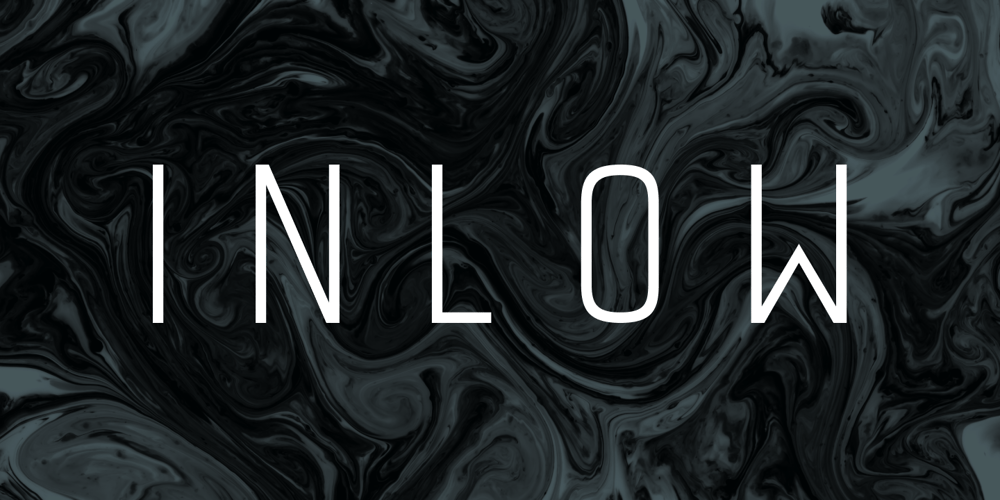
Inlow
Inlow font
Inlow Font Family was designed by Eugene Bunin and published by Harvester Type. Inlow contains 6 styles and family package options. Inlow is a font that evokes a sense of retromodernity, aesthetics, and something perfect. When developing it, I wanted to convey a touch of retro design and modern design. It can be used in the design of posters, logos, covers, Instagram, just in the text and many other ideas, all just border on your ideas. I think I can see this font on the covers of books. It’s exciting.Inspirations were book covers and cars from the 60s and 80s. I wanted to convey retro and modernism.The use of the font is unlimited, and the support of many European languages and not only gives a huge scope for creativity!Design By Eugene Bunin.